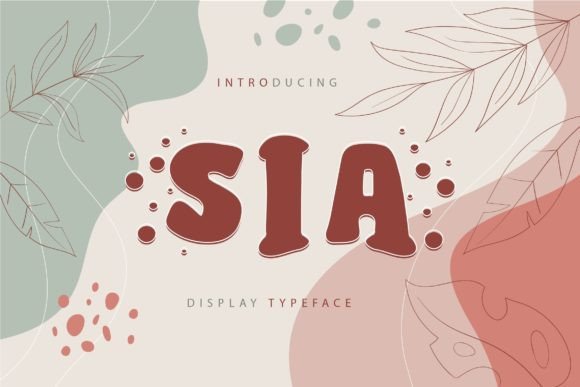
Embark on a typographic adventure with Sia, the display typeface that captivates hearts with its charmingly bubbly personality. Inspired by the exuberance of youthful expressions, Sia dances across your designs, evoking a sense of carefree joy and vibrant energy.
Dive into a world where letters transform into playful shapes, each character brimming with individuality. Sia's delightful curves and cheerful demeanor make it the perfect companion for party invitations, swimming gatherings, and any project yearning for a touch of youthful exuberance.
With Sia, your designs will burst into life, captivating audiences with its infectious charm. Its playful nature makes it a perfect fit for branding, logos, posters, social media, and packaging. Its versatility knows no bounds, allowing you to weave a tapestry of visual delight across multiple platforms.
Sia's true magic lies in its PUA encoding, granting you effortless access to an enchanting repertoire of glyphs and ligatures. Unleash your imagination and explore the limitless possibilities of typographic artistry. Craft mesmerizing letter logos that command attention, leaving an indelible imprint on the minds of your audience.
Sia is more than just a font; it's an invitation to embark on a creative journey where joy and whimsy reign supreme. Embrace the captivating energy of Sia and let your designs radiate with the infectious spirit of youth.